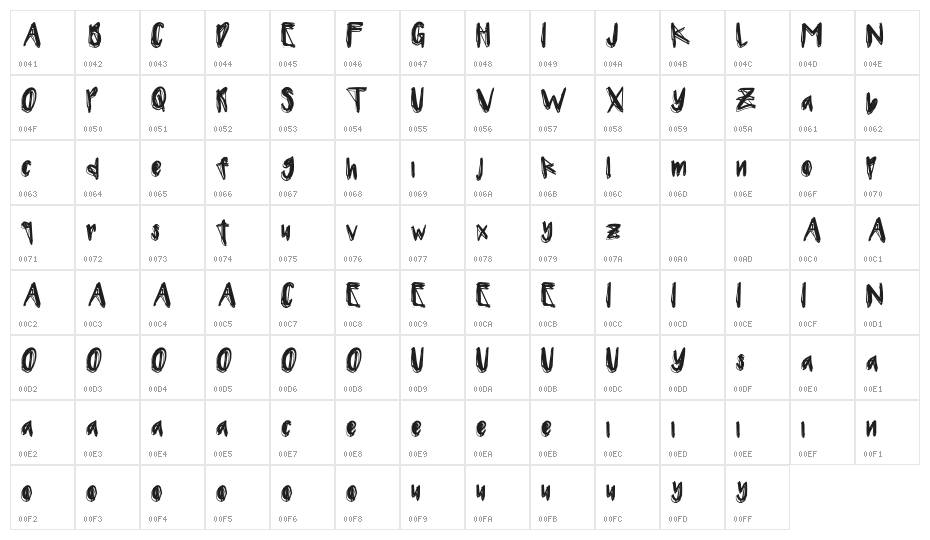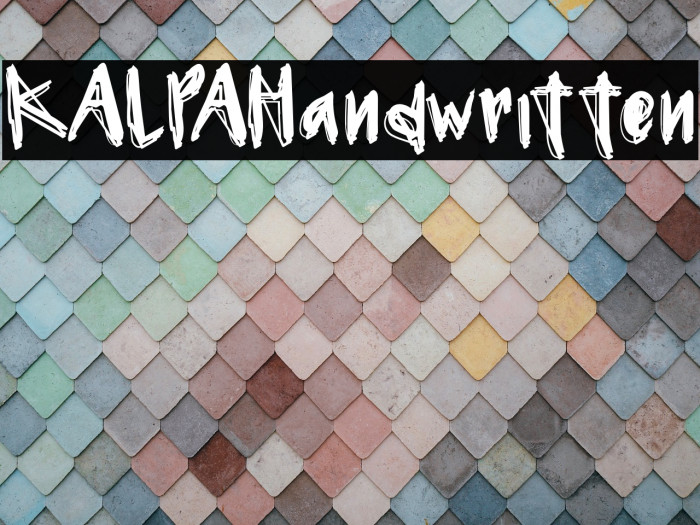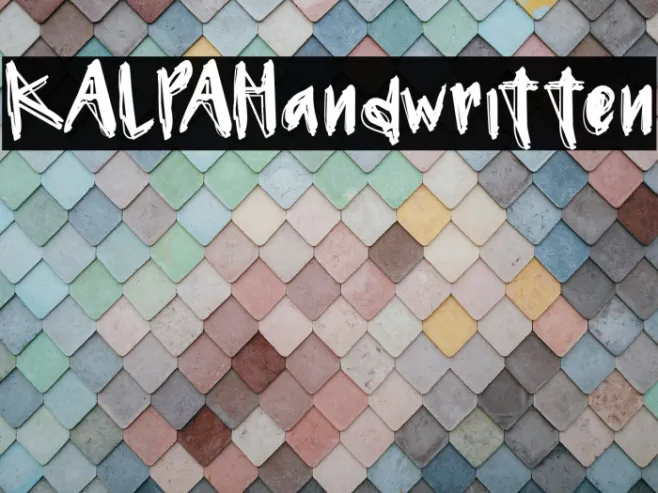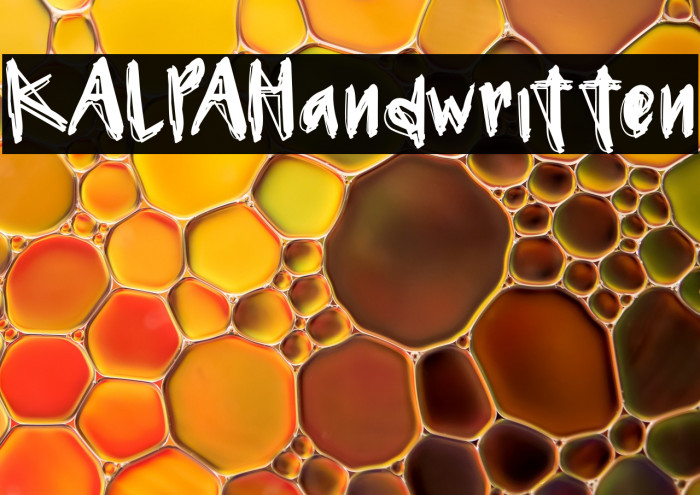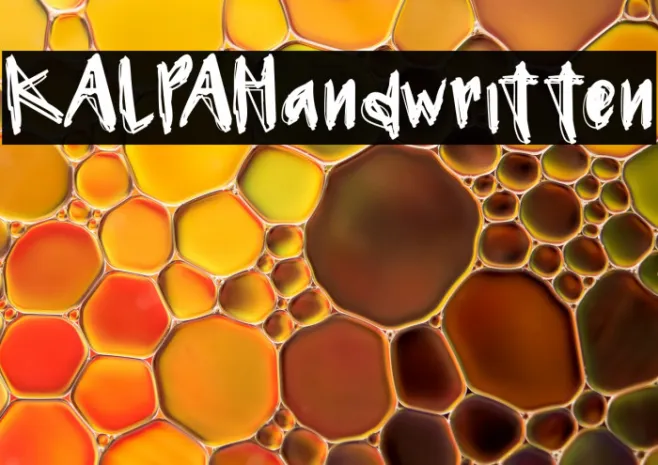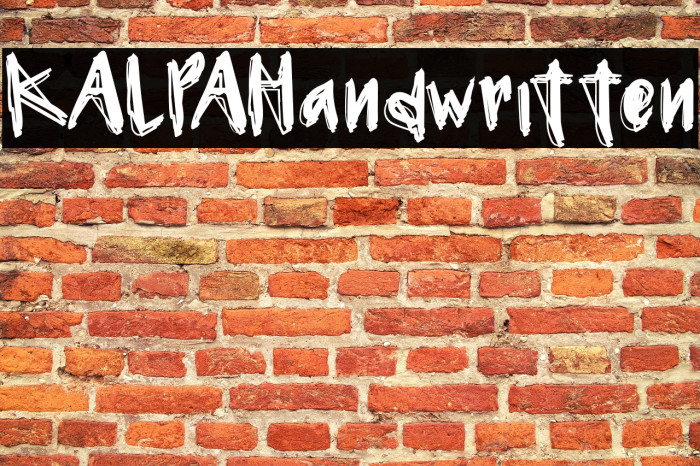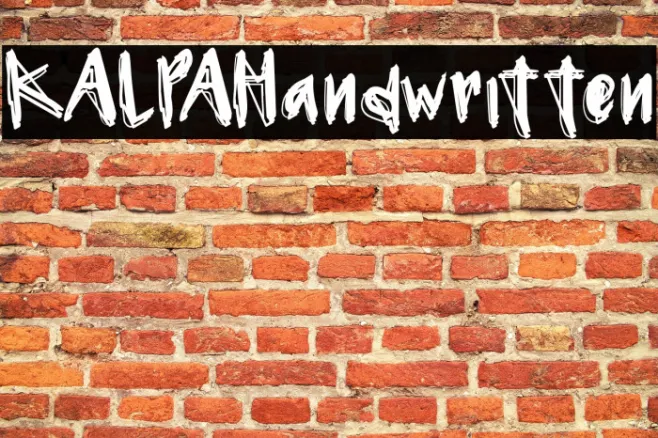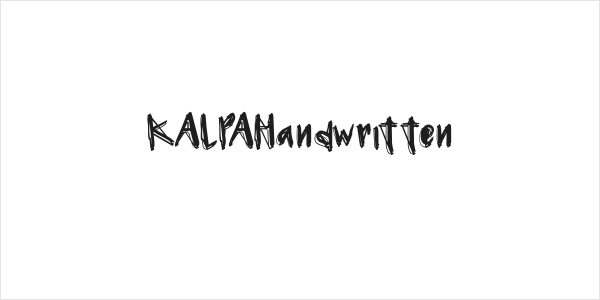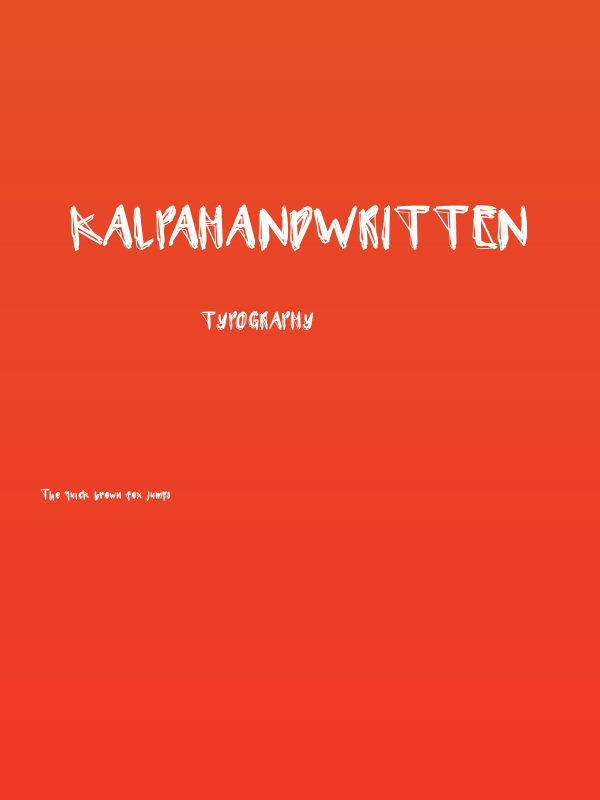
KALPAHandwritten Font
KALPAHandwritten Description
This font exhibits a bold, expressive handwritten style with a dynamic and energetic appearance. The strokes are thick and irregular, giving it a raw and artistic feel. Each character is uniquely crafted, with varying angles and curves that create a sense of movement and spontaneity. The uppercase and lowercase letters maintain a consistent style, while the numbers and special characters blend seamlessly into the overall design. This font is perfect for projects that require a personal touch or an artistic flair, making it ideal for creative designs.
| Use Case | Logos, Headlines, Artistic designs |
| Proposed Projects | Ideal for creative projects such as posters, album covers, artistic branding, and personal invitations. |